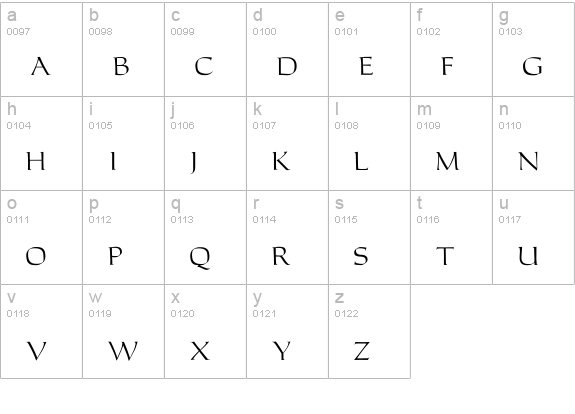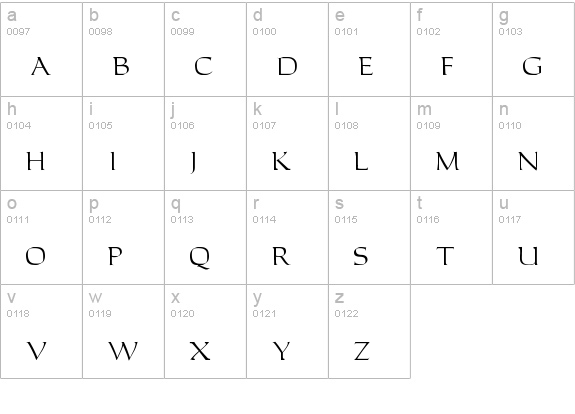
CarolusRomanFont Font Details
Introducing CarolusRomanFont, a versatile and elegant typeface that exudes sophistication and timeless charm. This font is perfect for adding a touch of classic style to your design projects, whether it's for branding, editorial work, or any other creative endeavor. CarolusRomanFont features clean lines and a balanced design that will make your text stand out with a touch of refinement. Its classic serif style lends a sense of authority and professionalism, making it an excellent choice for any project that requires a touch of elegance. Best of all, CarolusRomanFont is available for free download at FontsMarket.com. This means you can easily access this stunning font and incorporate it into your designs without any additional cost. Don't miss out on the opportunity to enhance your projects with the beauty and sophistication of CarolusRomanFont. Download it today and elevate your design to new heights.